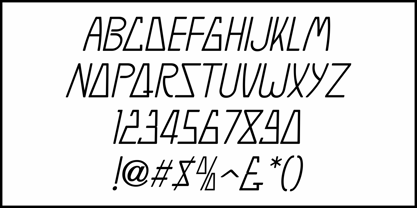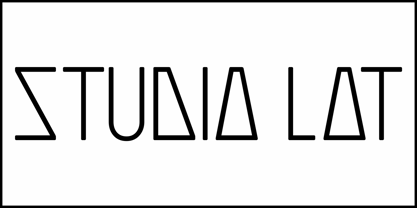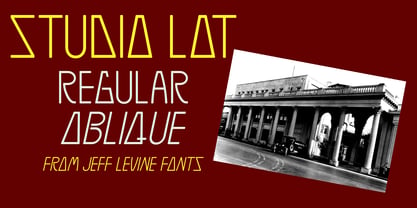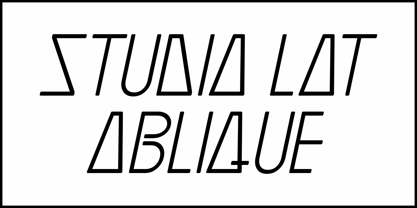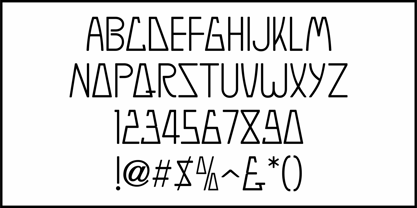
Studio Lot JNL
by Jeff Levine
A long-familiar sight in numerous vintage photographs and local sightseeing of old Hollywood's movie industry, the Art Nouveau/Art Deco-influenced sign hanging over the entrance to Metro-Goldwyn-Mayer Studios [with an angular look and feel that's seems to break many typographic standards], but inspired Studio Lot JNL, a thin sans serif design which is available in both regular and oblique.